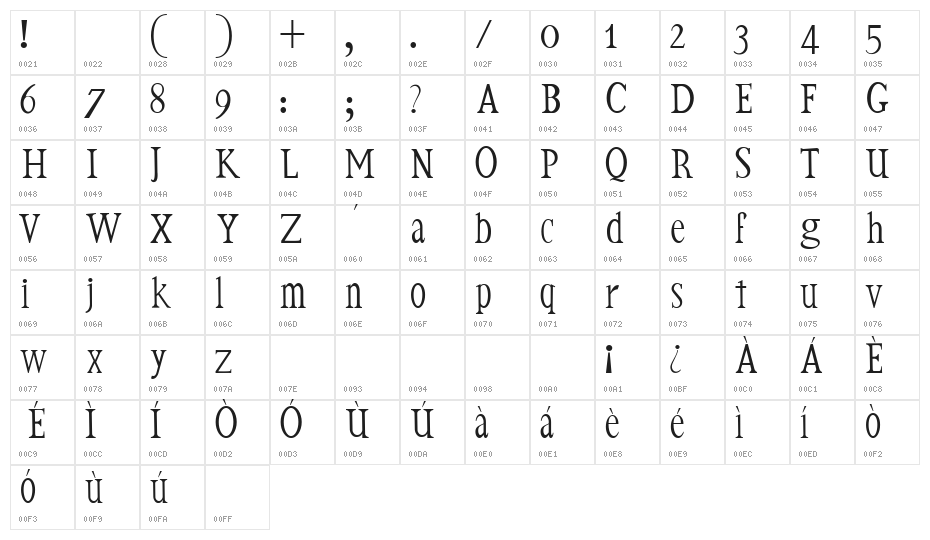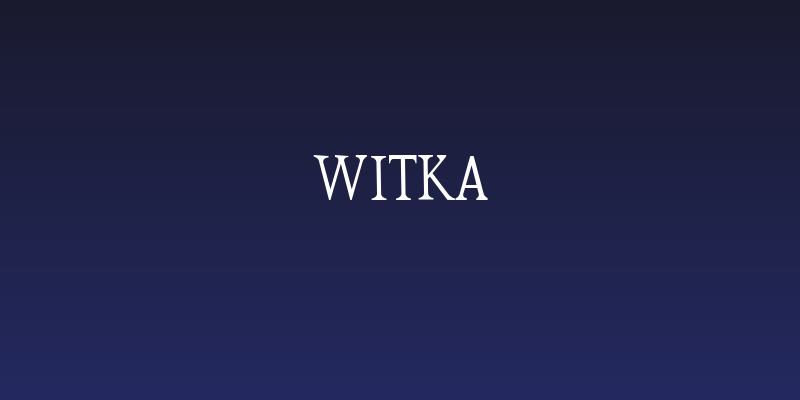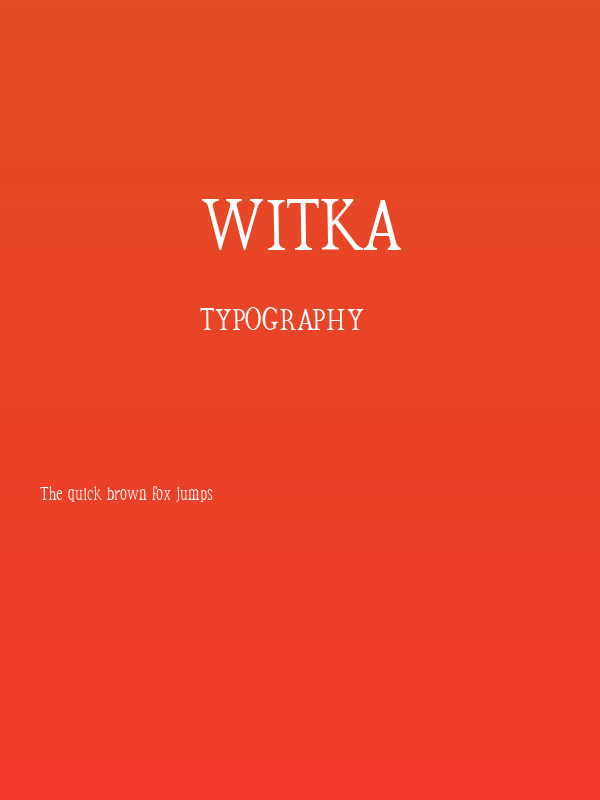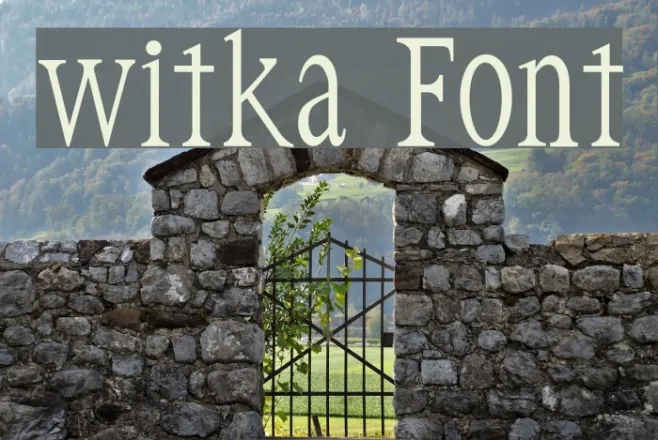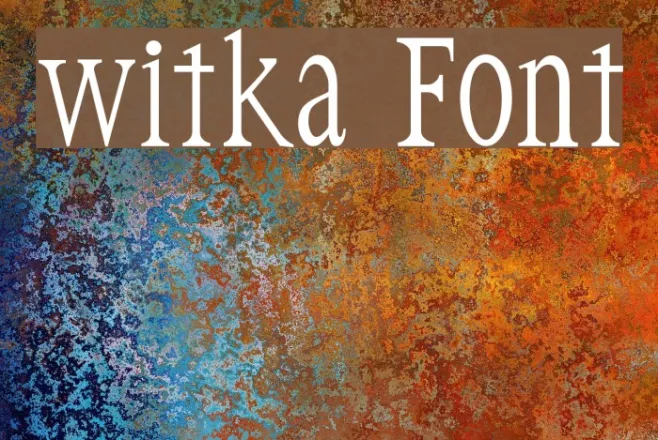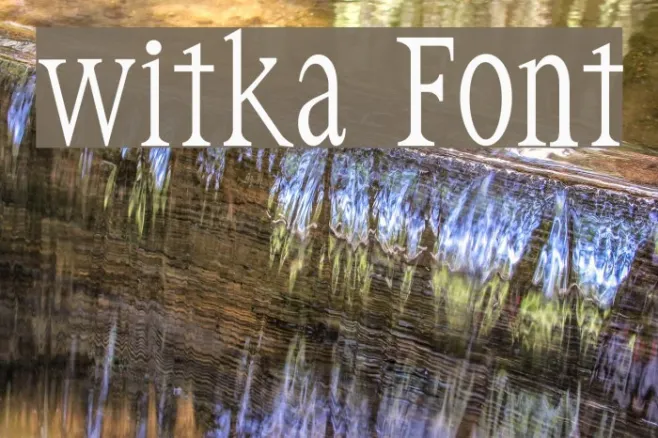
witka Font
witka Description
This font features a classic serif style with elegant and refined strokes. The uppercase letters are bold and commanding, while the lowercase letters maintain a consistent flow with slightly rounded edges. The numerals are well-proportioned, offering a harmonious balance with the letters. Special characters are distinct and maintain the overall aesthetic of the font. The serifs are pronounced, adding a touch of sophistication and tradition. This font is versatile, suitable for both formal and creative applications, providing a timeless appeal.
| Proposed Projects | Ideal for book covers, editorial design, branding, and formal invitations. |